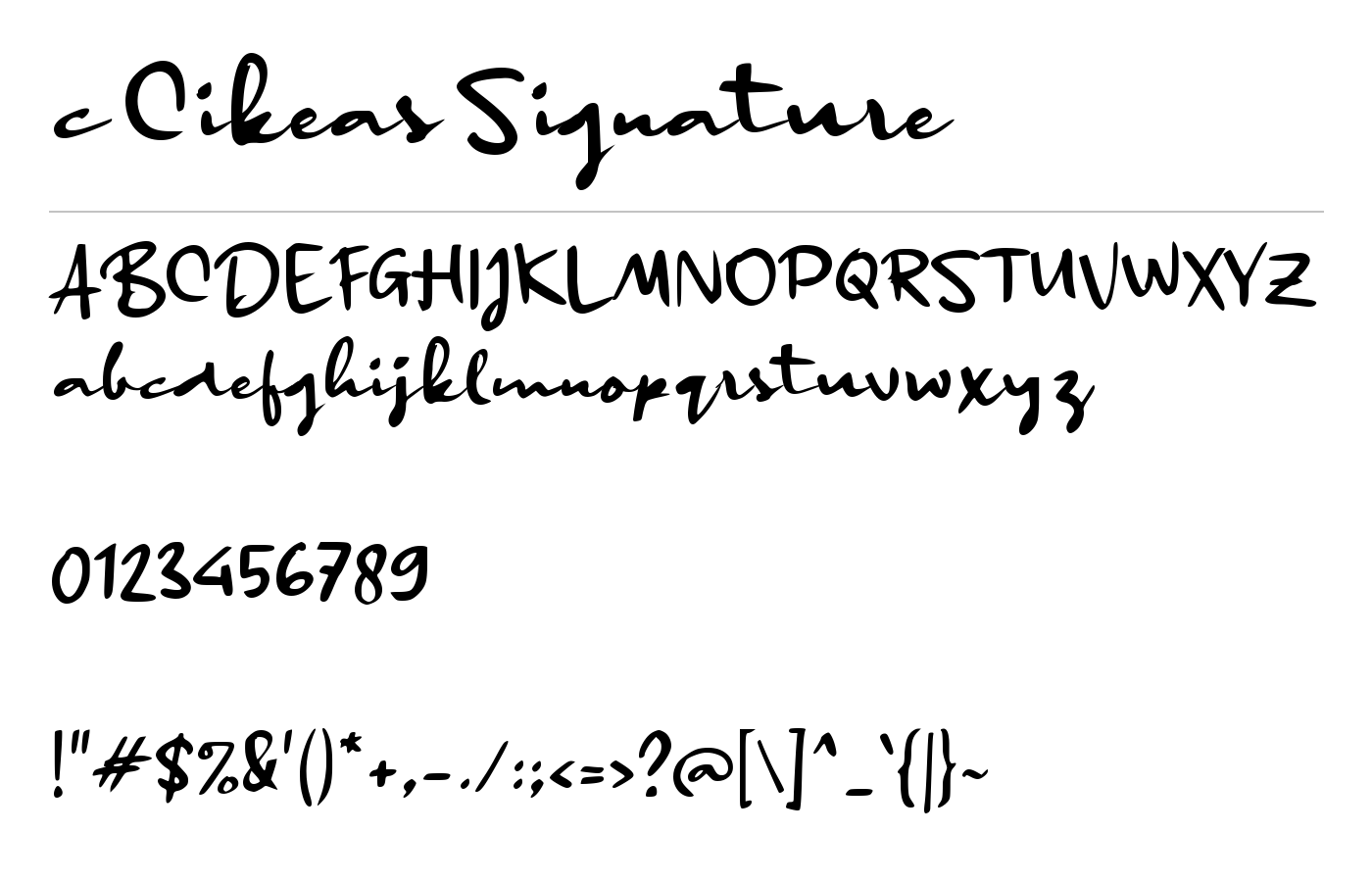
Cikeas Signature is a lively and elegant handwritten script font that captures the natural flow of personal handwriting with a modern twist. Its smooth, slightly varied strokes and balanced weight give it a friendly yet refined feel, making it perfect for branding, invitations, and creative projects seeking a warm, authentic touch. This font works beautifully for designs that want to convey personality and style without sacrificing readability.
c Cikeas Signature Font
About c Cikeas Signature Font